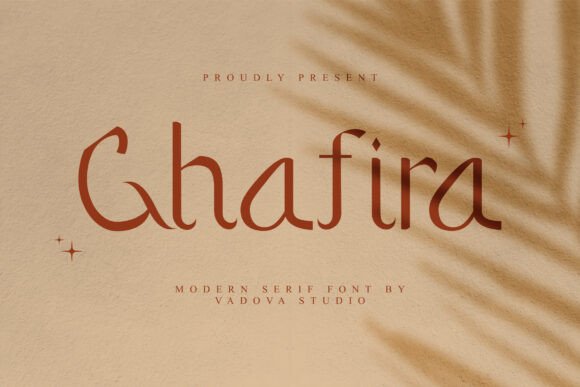
The Quest for the Perfect Font: Discovering Ghafira
I still remember the frustration of working on a project, hours spent searching for the ideal font that would bring my design to life. My client wanted something elegant, yet modern; something that would make their brand stand out. I scoured the internet, tried countless fonts, but nothing seemed quite right. That was until I stumbled upon Ghafira Font.
Ghafira presents a refined modern serif style with soft curves and subtle calligraphic influence, creating a graceful and expressive typographic voice. The characters feature delicate stroke contrast, slightly flared terminals, and unique letterforms that bring a poetic and artistic feel. Designed for high-resolution use, fully scalable, and easy to integrate across print and digital projects without additional plugins.
An Honest Review of Ghafira Font
- ✨ Exquisite Design: Ghafira’s design is truly stunning. The soft curves and subtle calligraphic influences give it a unique and elegant look.
- ✅ Versatility: This font is incredibly versatile. It can be used for a wide range of projects, from print materials like brochures and posters to digital applications like websites and social media graphics.
- 💡 OpenType Features: Ghafira supports OpenType features, which means you can access a range of glyphs and stylistic alternates to add more creativity to your designs.
- 👍 Easy to Use: Despite its complex design, Ghafira is surprisingly easy to use, even for those who are new to working with fonts.
While Ghafira is an excellent font, there are a few minor quirks to be aware of:
- ⚠️ Legibility at Small Sizes: Like many serif fonts, Ghafira can be a bit tricky to read at very small sizes. It’s best used at larger sizes where its elegant design can shine.
- 🤔 Pairing with Other Fonts: While Ghafira is beautiful on its own, it can be a bit challenging to pair with other fonts. You may need to experiment with different combinations to find the perfect match.
The Backstory of Ghafira Font
Ghafira was designed with the intention of creating a font that embodies both modernity and elegance. The designer sought to blend traditional calligraphic elements with contemporary typographic trends, resulting in a font that is both poetic and artistic. The name “Ghafira” reflects the font’s graceful and expressive nature.
Q: What is Ghafira Font?
A: Ghafira Font is a modern serif typeface with soft curves and subtle calligraphic influences, designed to bring an elegant and expressive voice to typography.
Q: Is Ghafira suitable for body text?
A: While Ghafira is beautiful and highly readable, it’s best used for headings and titles due to its delicate design. For body text, consider using a font with a bit more weight and clearer legibility.
Q: Does Ghafira support OpenType features?
A: Yes, Ghafira supports OpenType features, including glyphs and stylistic alternates, allowing for more creative and varied typography.